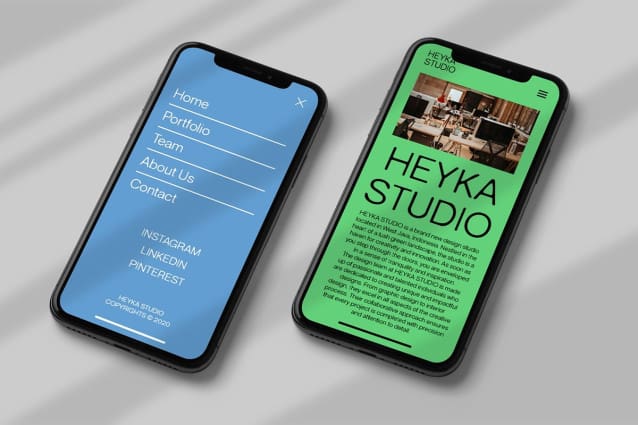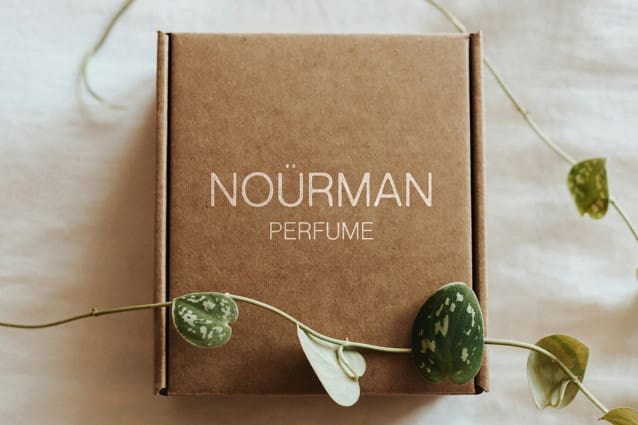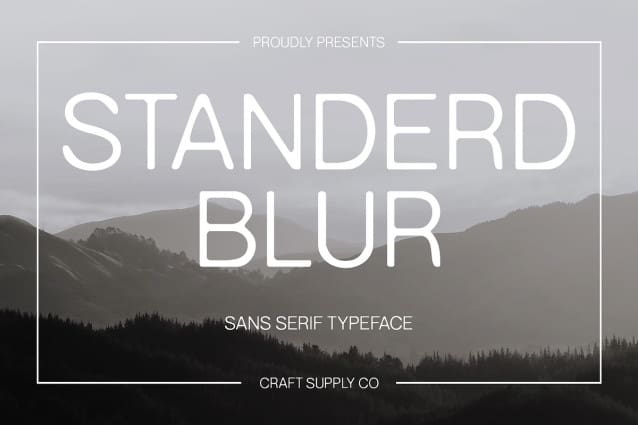
Standerd Blur Font
Standerd Blur Font is a sans serif font with a blur vibe, perfect for display purposes. Its sleek design and subtle blur create a contemporary and stylish look, ideal for posters, branding, and other projects that require a modern and artistic touch.
With its clean lines and blurred details, Standerd Blur offers a fresh take on sans serif fonts. The modern style and subtle blur effect create a smooth and balanced appearance, adding a touch of sophistication to any design project.
Whether you’re designing a striking advertisement or creating a sleek logo, Standerd Blur is sure to make an impression. Its modern design and blur effect make it perfect for displays that demand attention and convey a sense of elegance and creativity.
Despite its distinctive appearance, Standerd Blur is versatile and easy to use. The font works well in both large and small sizes, making it suitable for a variety of applications, from headlines and banners to body text and more. With its blend of modernity and blur effect, Standerd Blur adds a unique and stylish touch to any design.